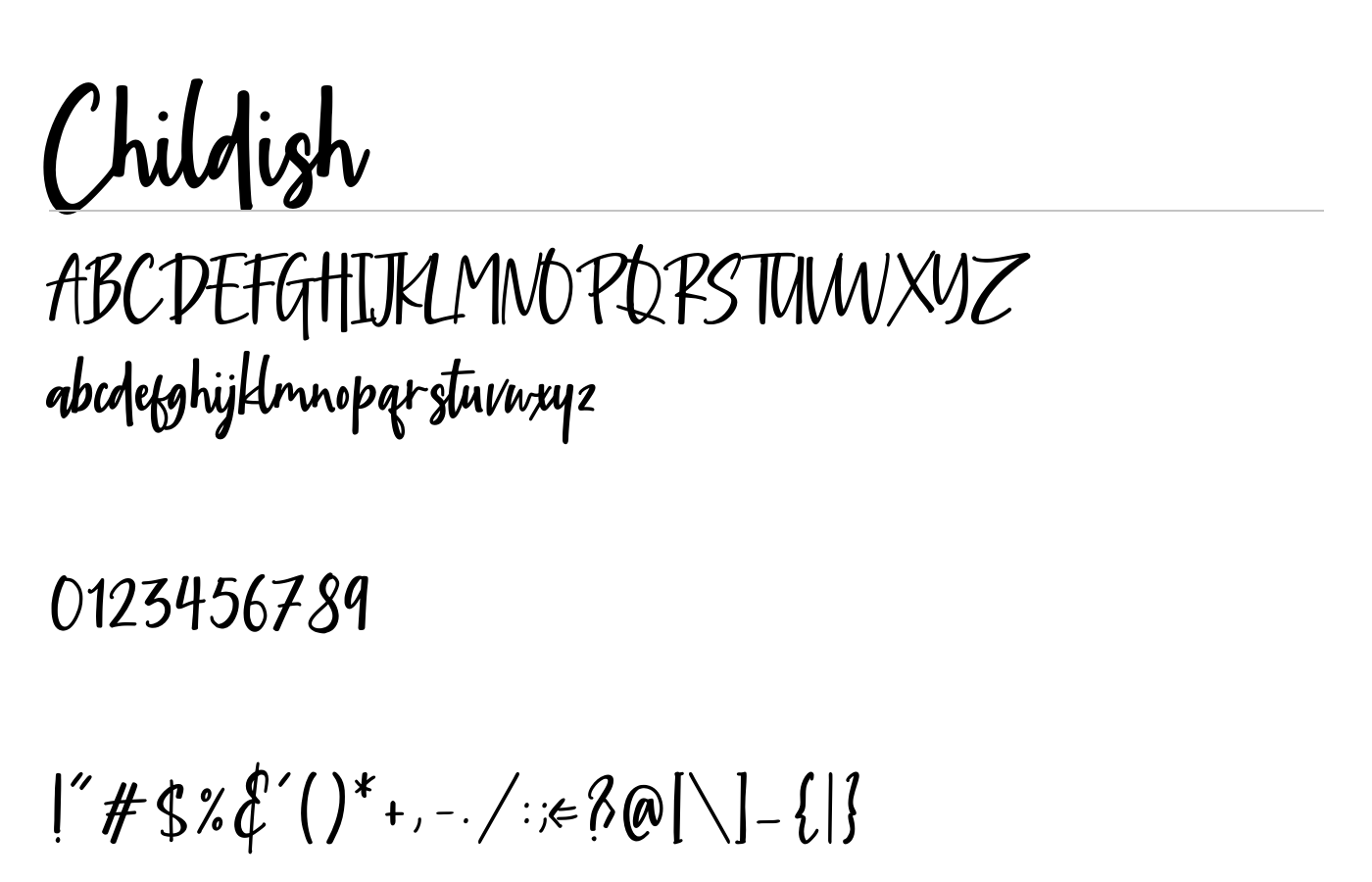
Childish Sweet Handwritten Font
Childish is a Sweet Handwritten Font. This sweet font has nice smooth lines. Childish Sweet Handwritten Font is perfect for product packaging, branding project, magazine, social media, weddings, or just used to express words above the background. This free typeface was designed by a talented Balpirick Studio. If you like it don’t forget to check out the full version.